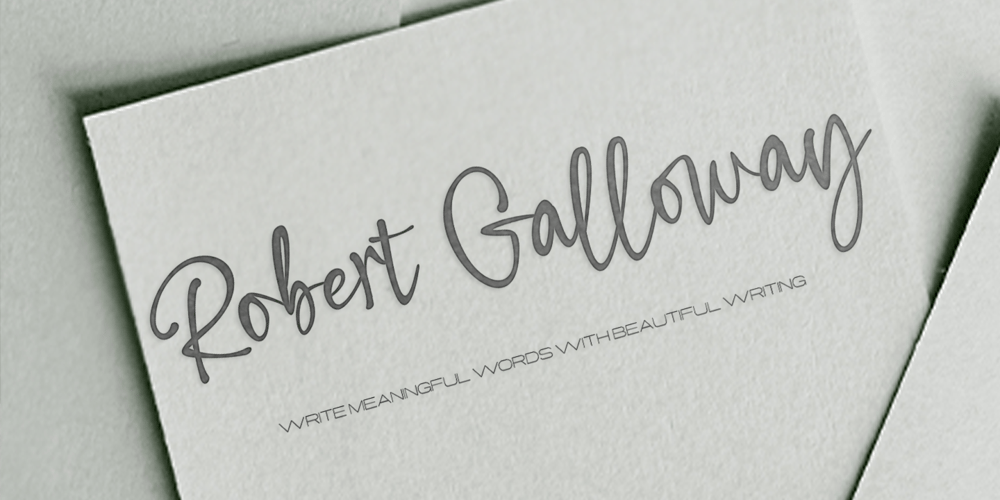
Beby Asia Font Family was designed by Roiyani Teungku and published by Artisan Studio. Beby Asia contains 2 styles and family package options. Beby Asia has two font styles, namely regular and italic, which are purely handwritten works that have a natural nature. It’s perfect for invitations, signatures, blogs, social media, business cards, branded products.Beby Asia has Stylistic standard, Stylistic Initial, Stylistic Terminal and ligatures. and includes uppercase and lowercase letters, numbers and punctuation marks.